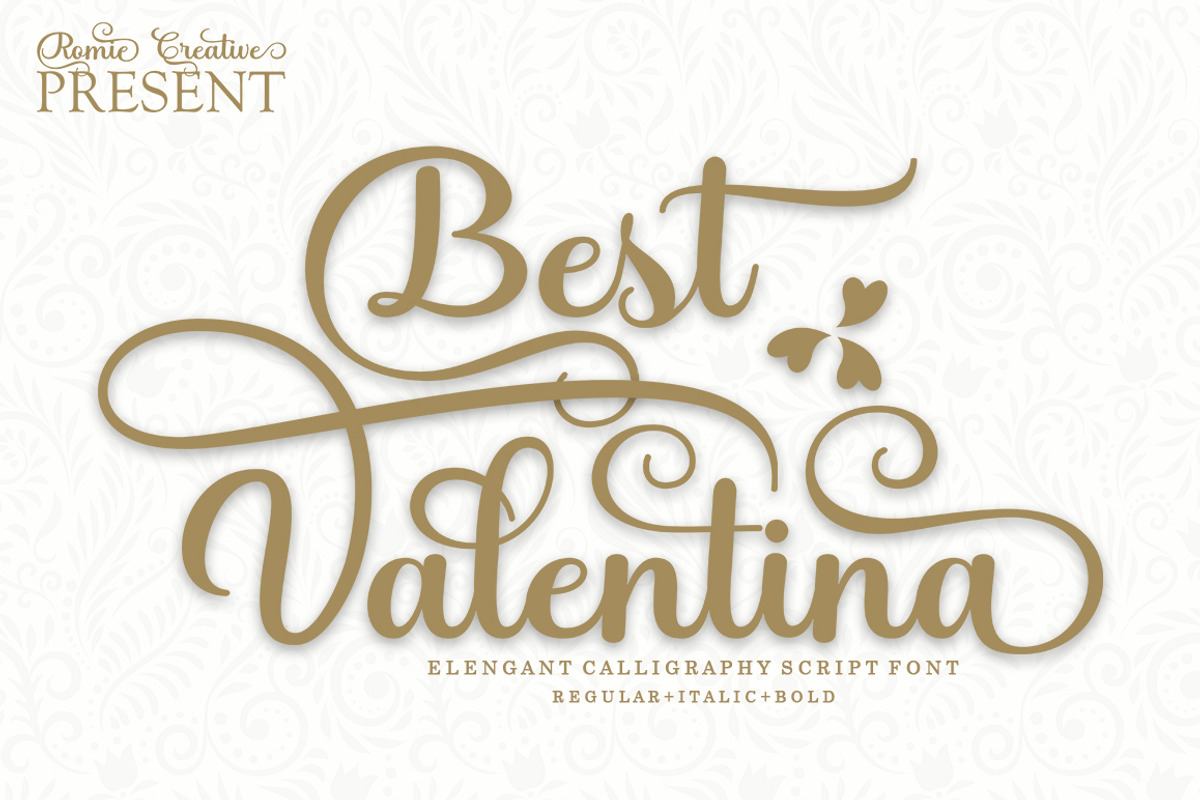
Best Valentina Font Free Download is an elegant and versatile script typeface that combines a modern calligraphy style with graceful curves and smooth letterforms. Ideal for projects requiring a personal, sophisticated touch, this font is perfect for branding, invitations, wedding stationery, logos, and more.
Its smooth, flowing design gives it a timeless and classic feel, making it suitable for both formal and creative applications. Whether you’re designing for a luxury brand, crafting an event invitation, or creating custom social media graphics, Best Valentina brings a refined, chic look to your typography.